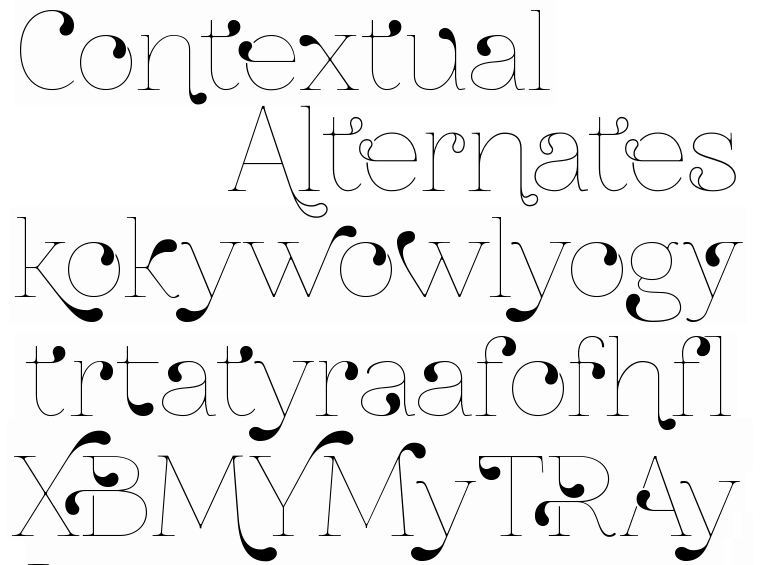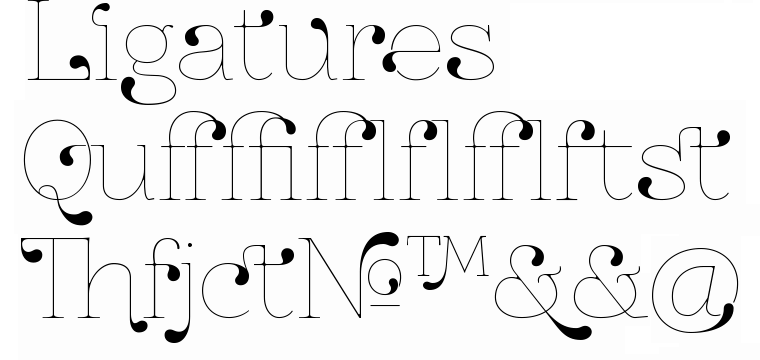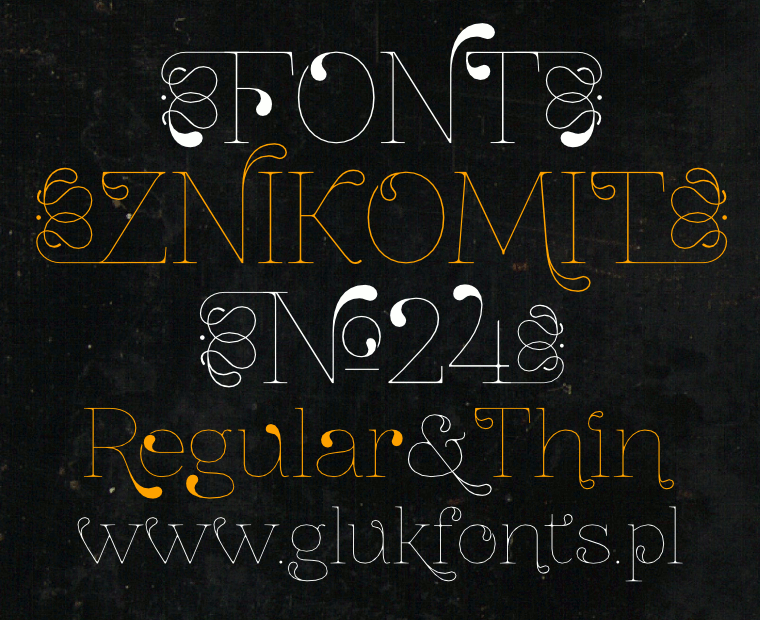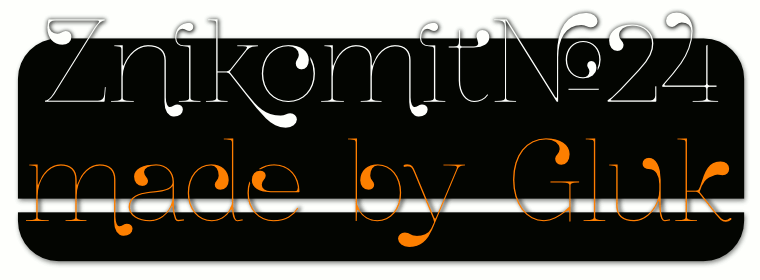
Geometrical, serif font ZnikomitNo24 based on my Font Znikomit→. For correct work Font need OpenType features: Standard Ligatures and Contextual Alternates. Font have alternate Glyphs “A”, “Q”, “R”, “V”, “W” as Stylistic Set 02 and decorative Ornaments as Stylistic Set 03.